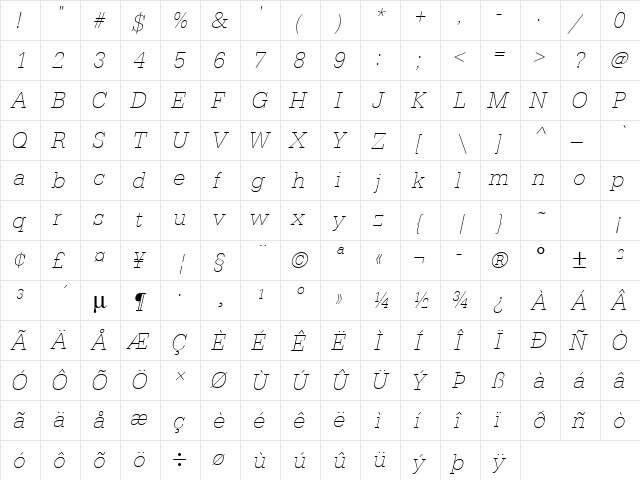
URWTypewriterTExtLigNar Oblique Font Preview
Design Context for URWTypewriterTExtLigNar Typeface
URWTypewriterTExtLigNar uses fixed-width spacing throughout, giving it the structured, systematic character associated with coding environments and technical documentation. The slanted form adds forward momentum and visual energy.
Well-suited to data-driven dashboards, coding tutorials, and any design that wants to reference the world of programming.